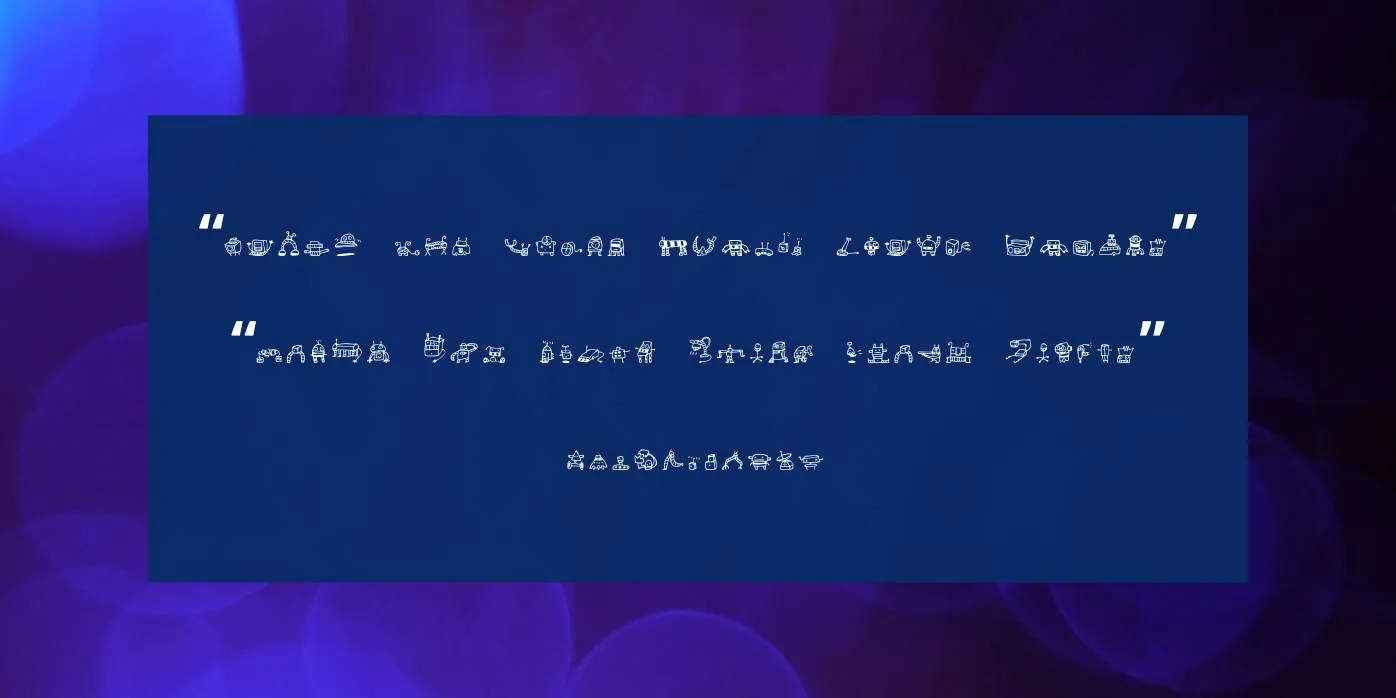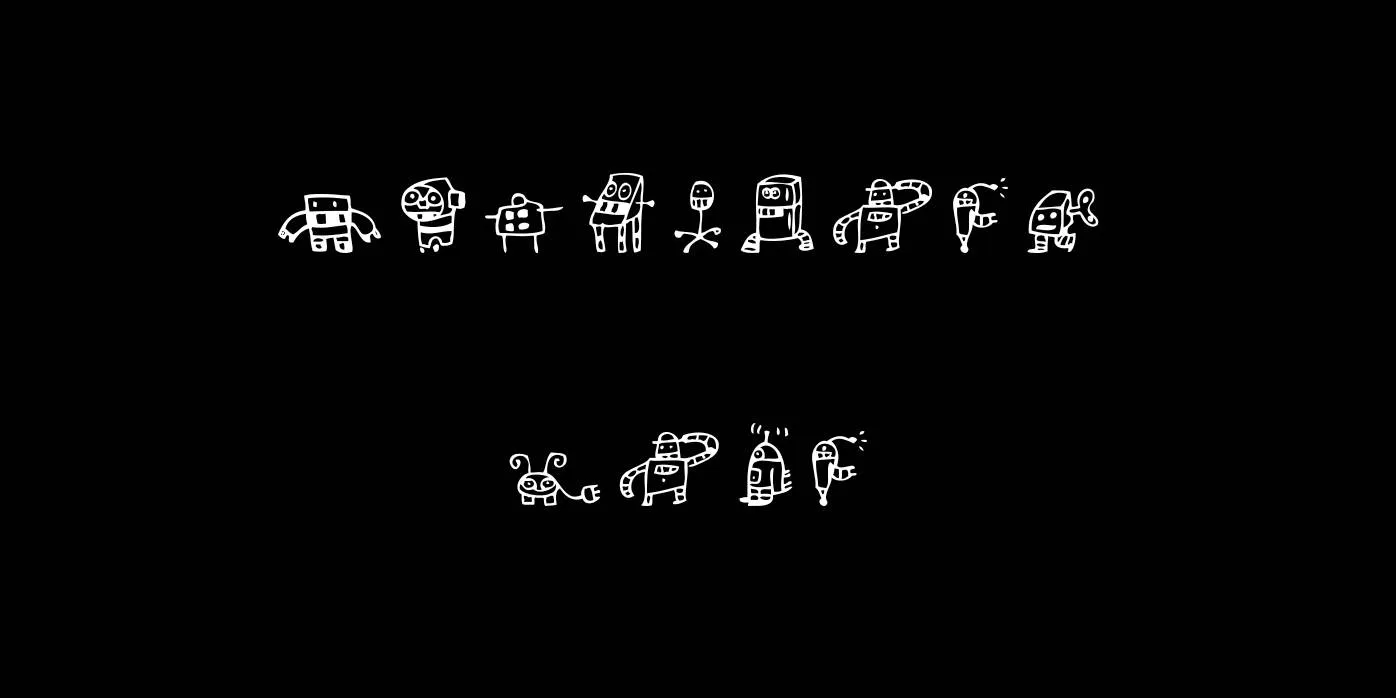
Alphabots Font
Alphabots Font is a dingbat type of typeface. Alicia Souza is the designer of this typeface. There are 71 unique glyphs for this typeface. This texture was before 2009.
This dingbat type of font has only one regular style. The characters of this texture support all uppercase letters, small letters, digits, and 5 punctuation marks. You can get this typeface in OpenType Font and TrueType Font formats. You can beneficially utilize this texture in Halloween parties.